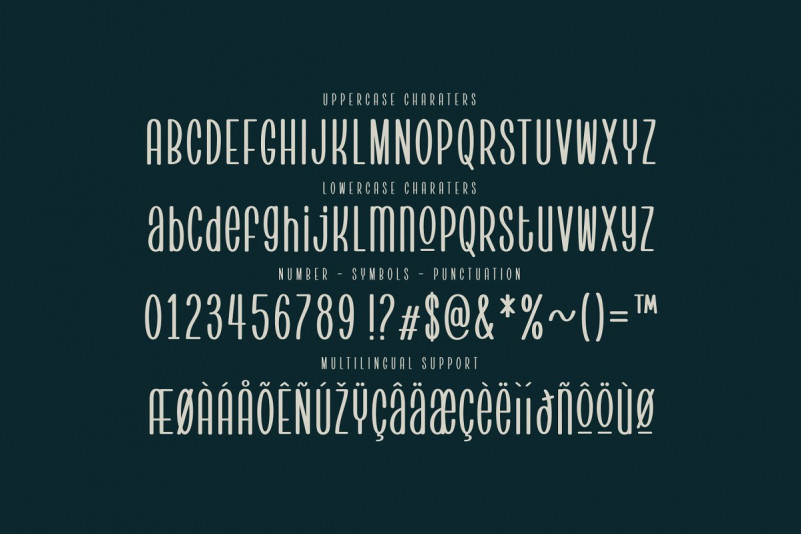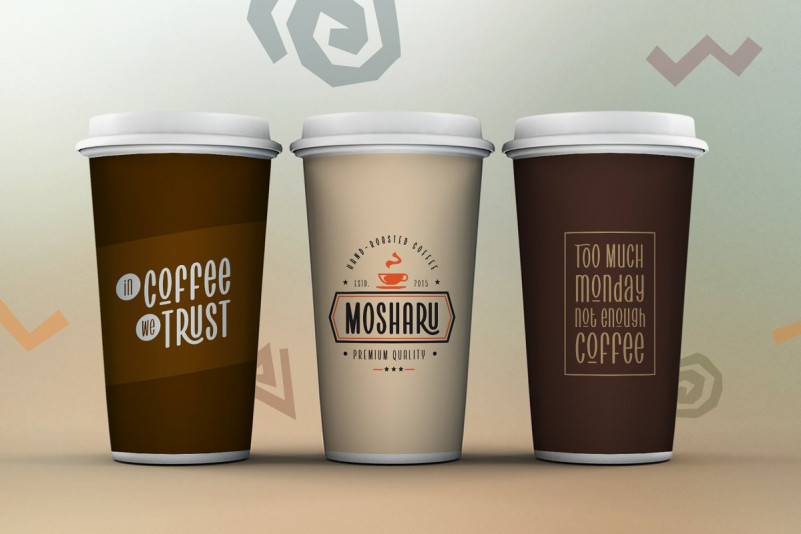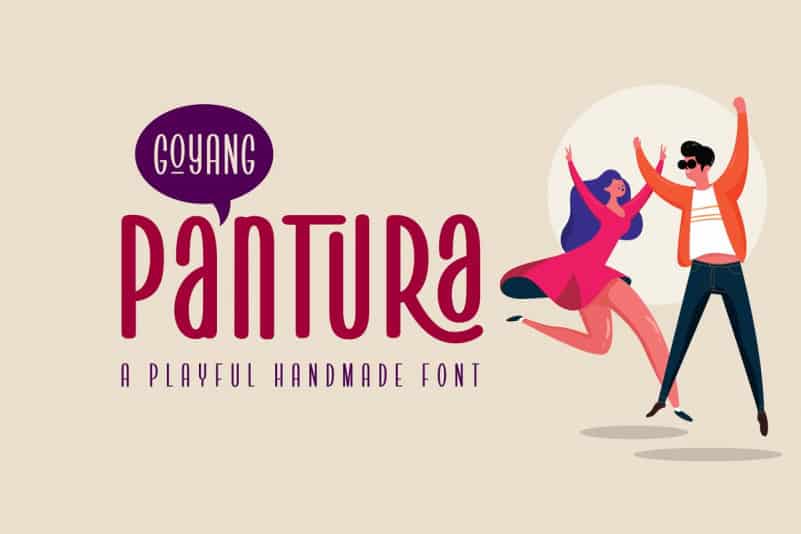
Pantura Display Font
Pantura Font is a thin, playful font that looks like handwriting. This is playful style font. You can use this on kids project, logo, social media post, book cover, and other project. It is design and shared by locomotype. It’s a simple yet playful handmade font. Based on casual handwriting, it makes your typographic design very personal. Several ligatures are added to make your design unique and attractive. It’s is suitable for poster, invitation, label, logotype, packaging and more.